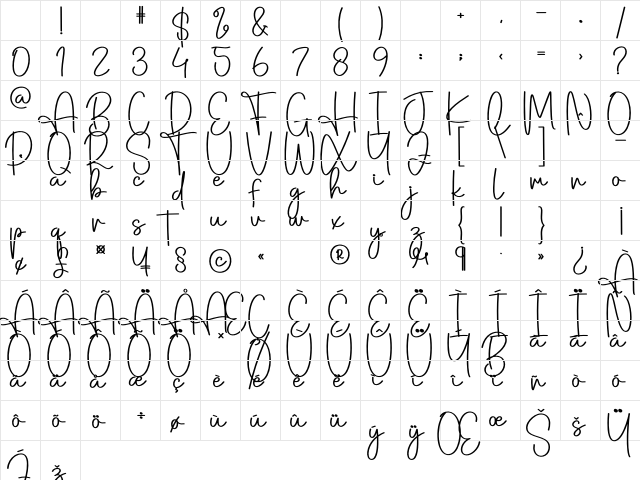
Complete Christmas Greetings Regular glyph index. Displaying only characters natively supported by Christmas Greetings Regular font.
Christmas Greetings is a composed and adaptable typeface that performs quietly and consistently across a wide range of design contexts.